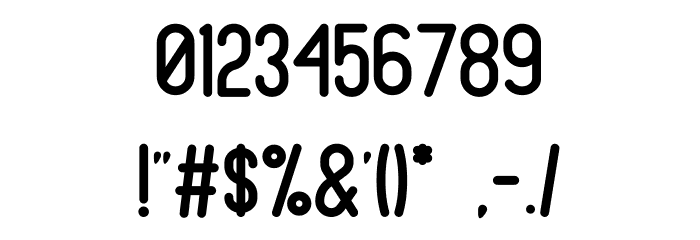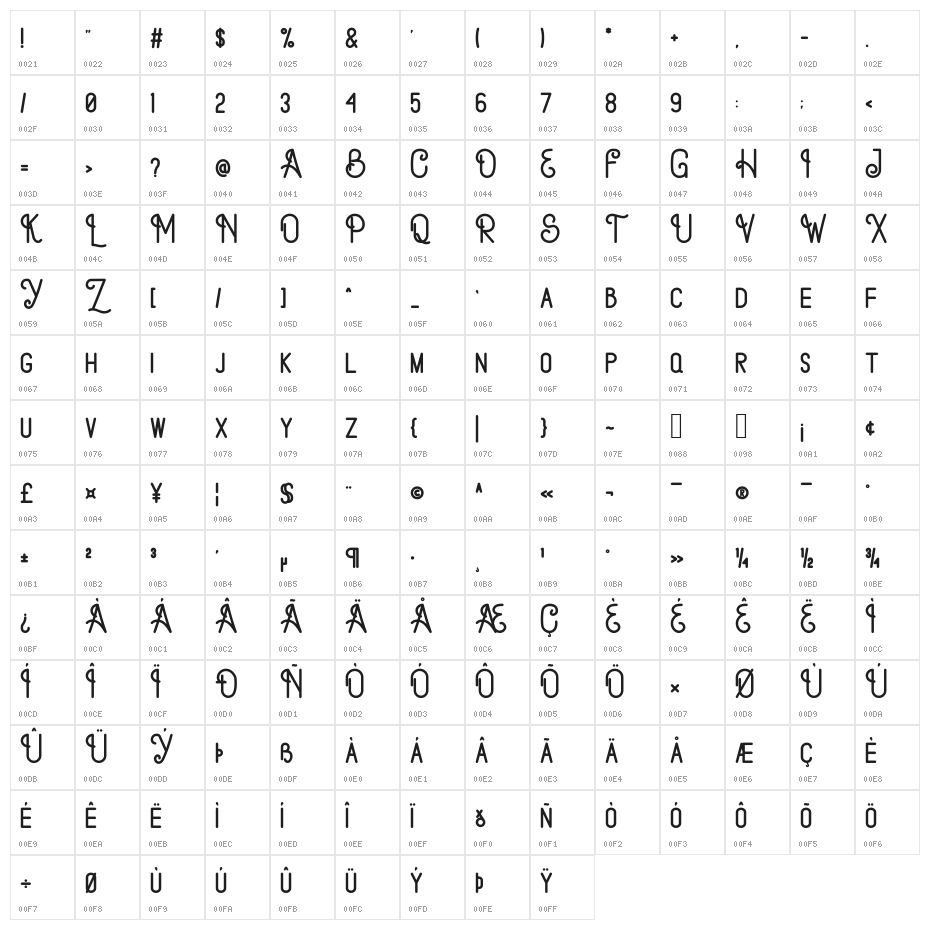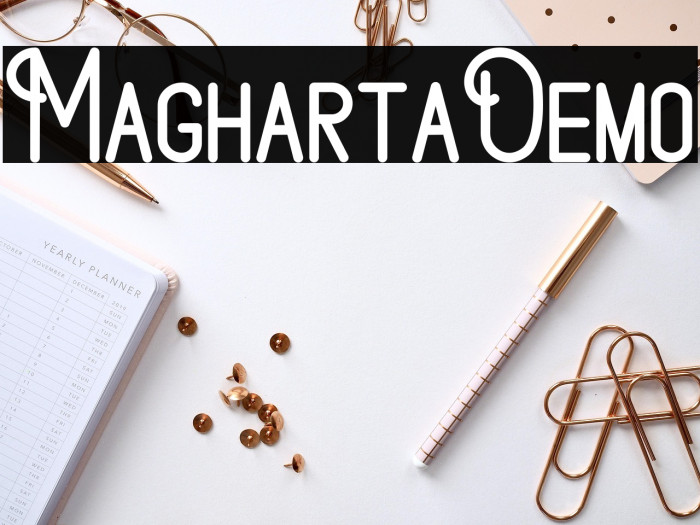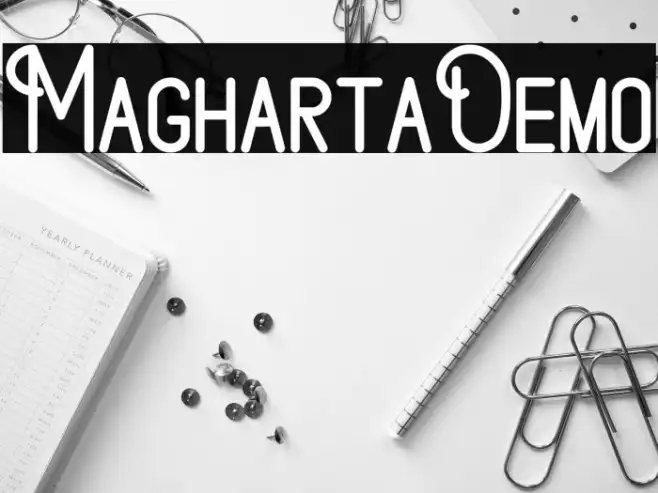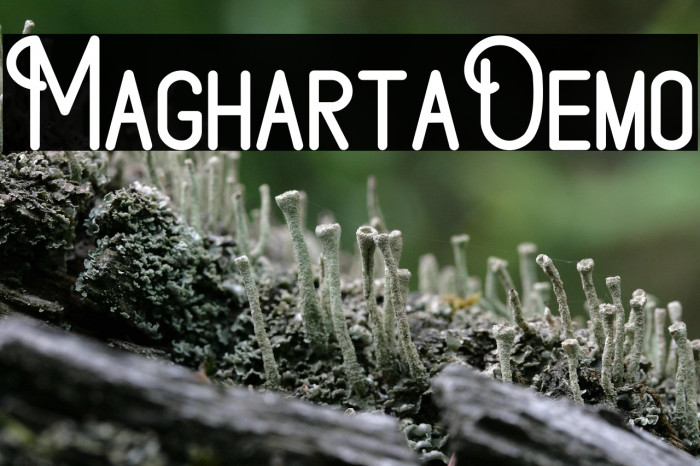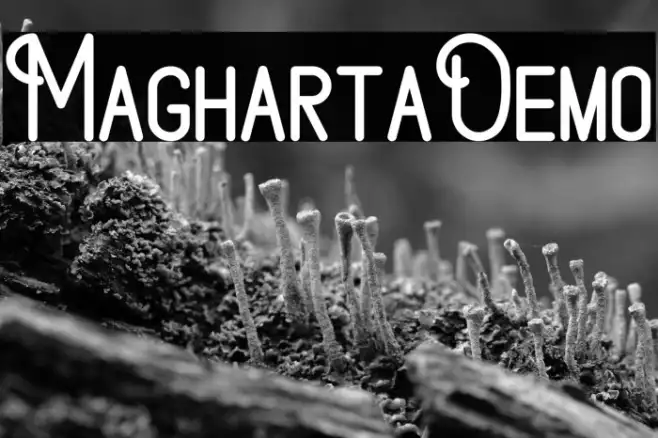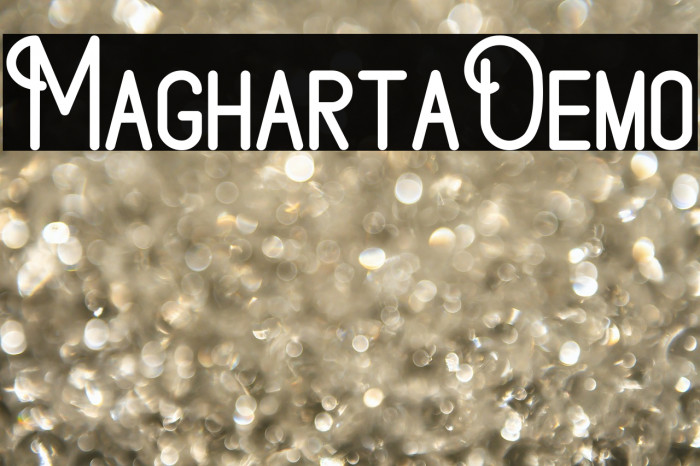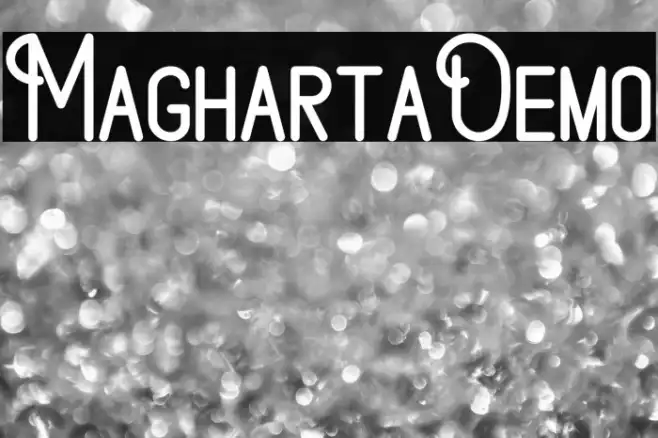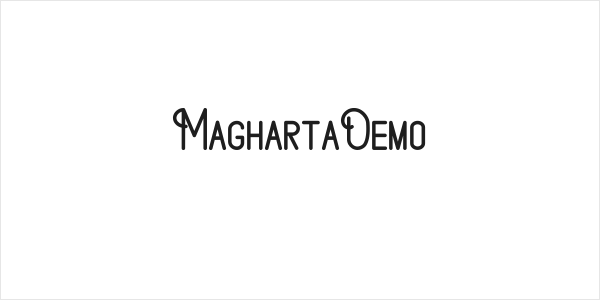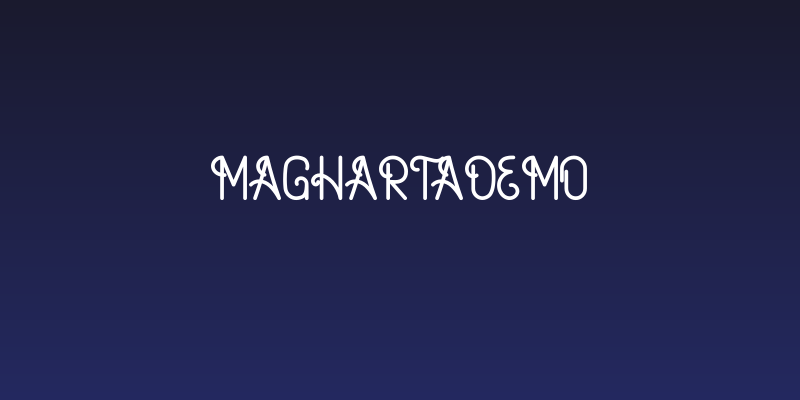
MaghartaDemo Font
MaghartaDemo Description
This font features a playful and whimsical style with a unique blend of rounded and angular elements. The uppercase letters have a distinctive looped design, giving them a lively and dynamic appearance. The lowercase letters maintain a more straightforward, yet complementary style, creating a harmonious balance. The numerals are bold and clear, ensuring readability. Special characters are designed with the same playful flair, making them stand out. This font is perfect for projects that require a fun and engaging aesthetic.
| Proposed Projects | Ideal for children's books, playful branding, creative posters, and event invitations. |